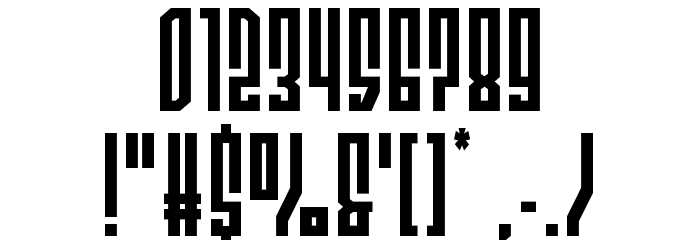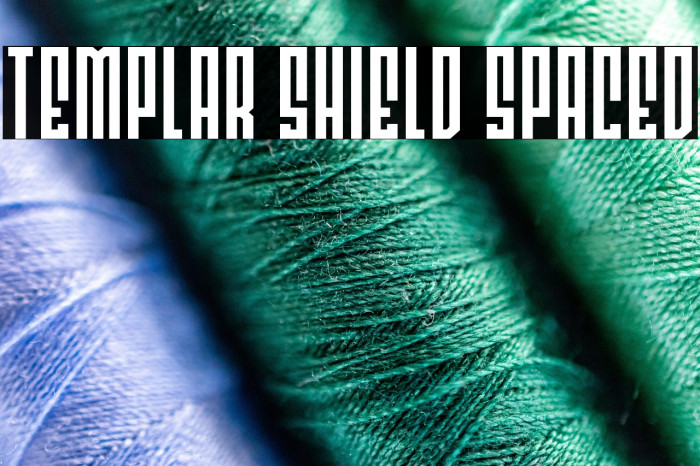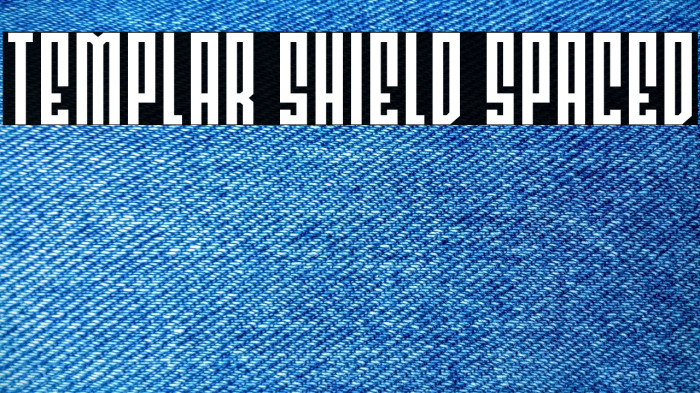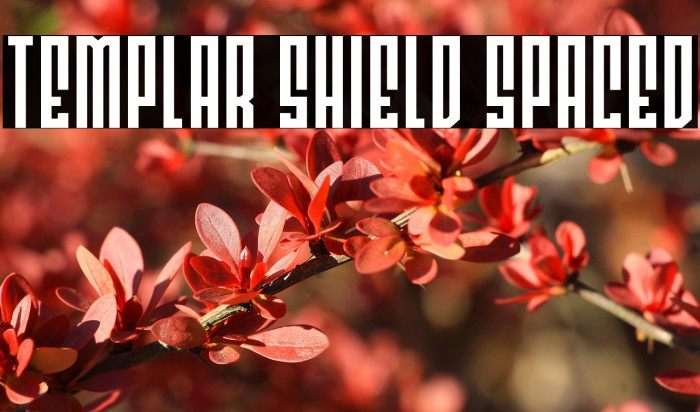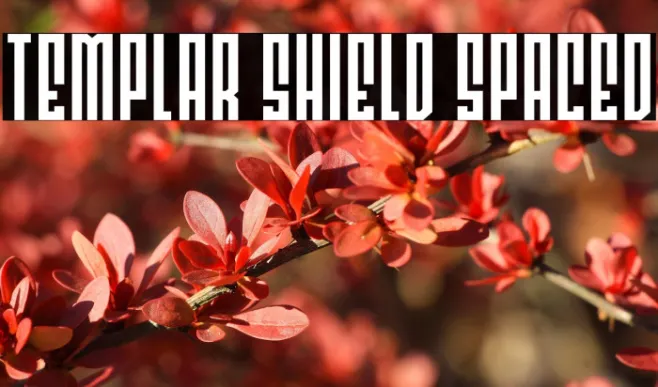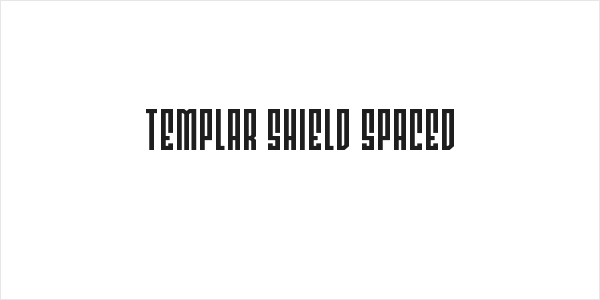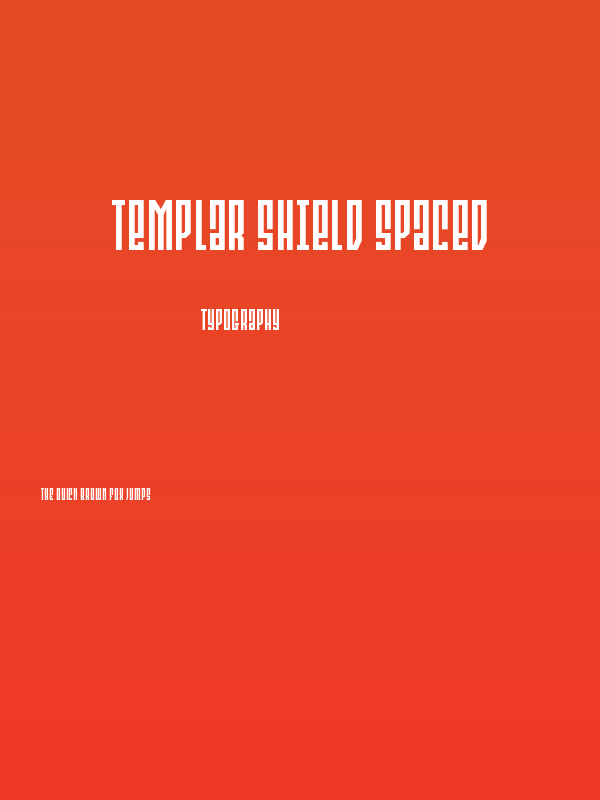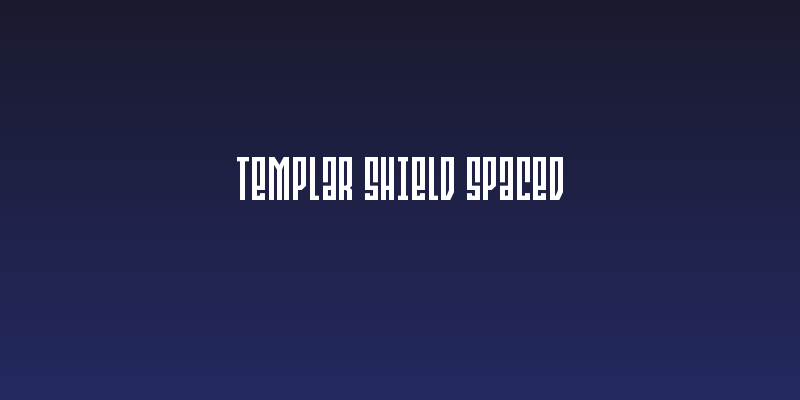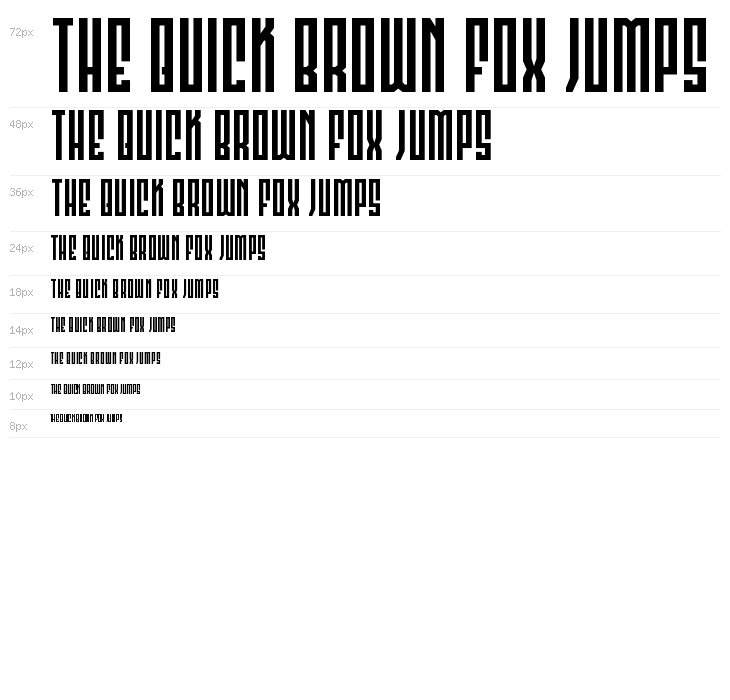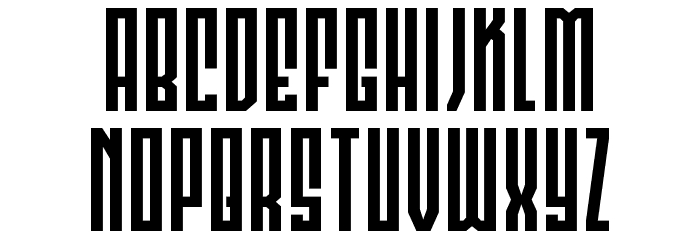
Templar Shield Spaced Font
Templar Shield Spaced Description
This font features a bold, geometric design with strong, angular lines and a distinct, modern aesthetic. The characters are uniformly spaced, creating a cohesive and structured appearance. The uppercase letters exhibit a tall, narrow form, while the lowercase letters maintain a consistent style, enhancing readability. The numerals and special characters are crafted with the same attention to detail, ensuring a harmonious look across all text elements. This font's unique style makes it suitable for projects that require a strong visual impact.
| Proposed Projects | Ideal for branding, posters, headlines, and any design needing a strong, impactful typeface. |